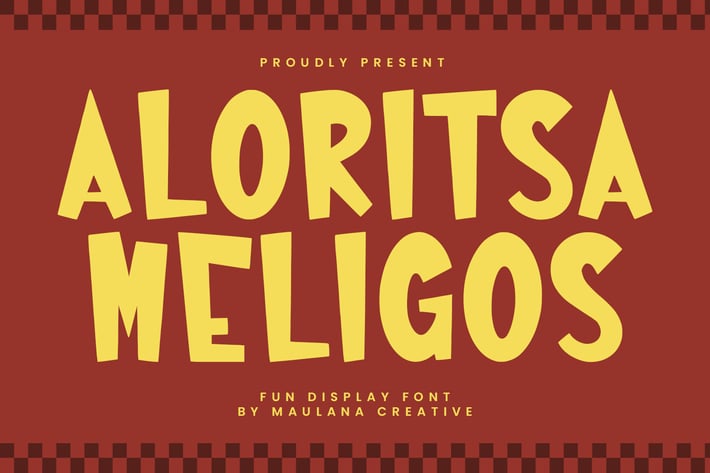
Aloritsa Meligos Fun Display Font
Aloritsa Meligos fun display font. Heavy stroke, fun character with a bit of ligatures. To give you an extra creative work. Aloritsa Meligos fun display font support multilingual more than 100+ language. This font is good for logo design, Social media, Movie Titles, Books Titles, a short text even a long text letter and good for your secondary text font with script or serif. Make a stunning work with Aloritsa Meligos fun display font.